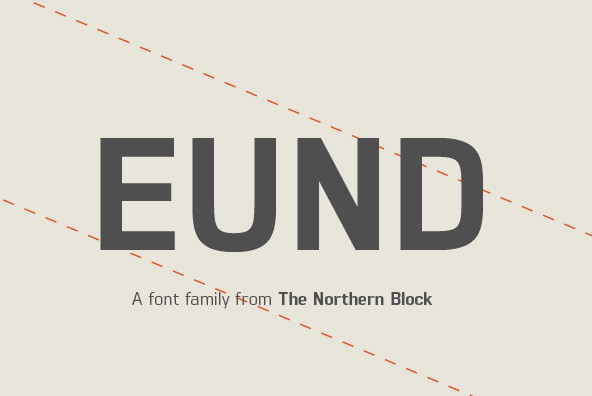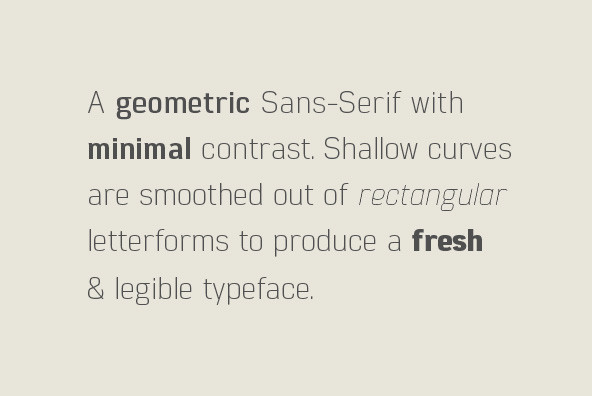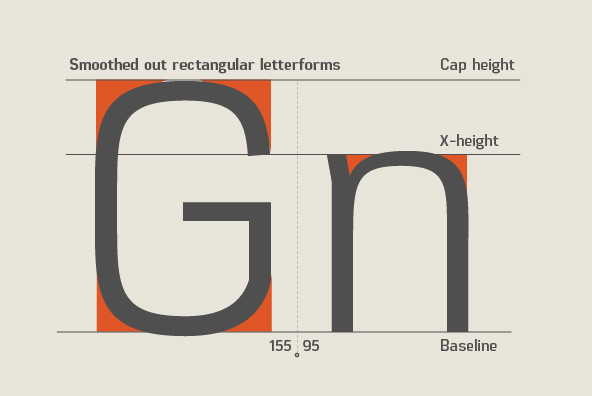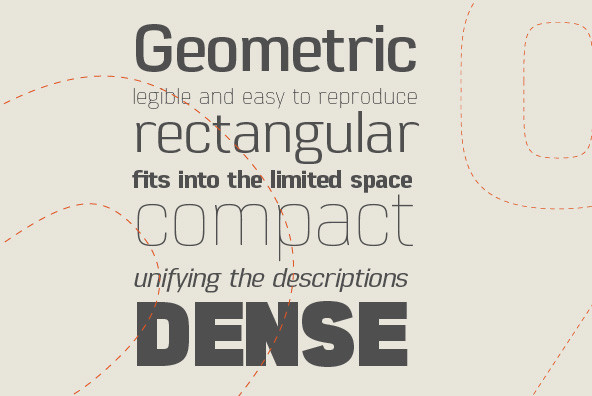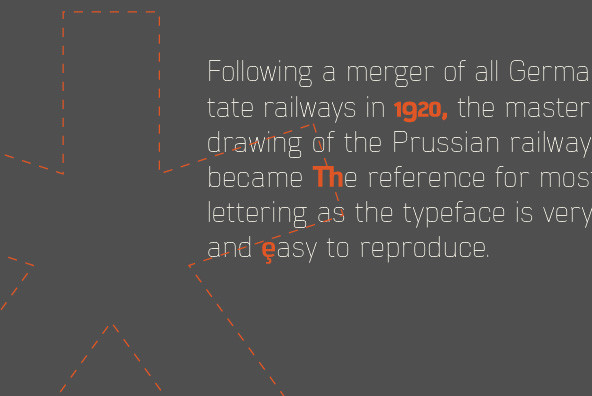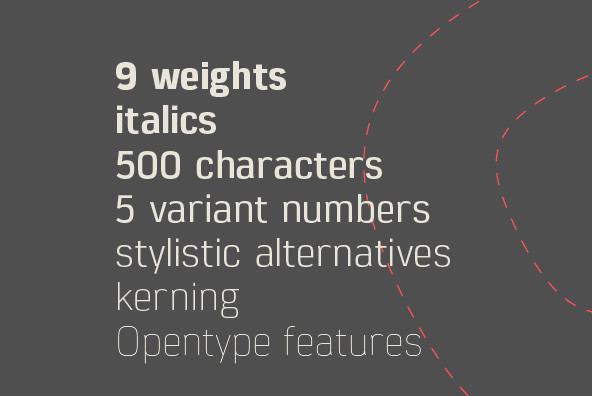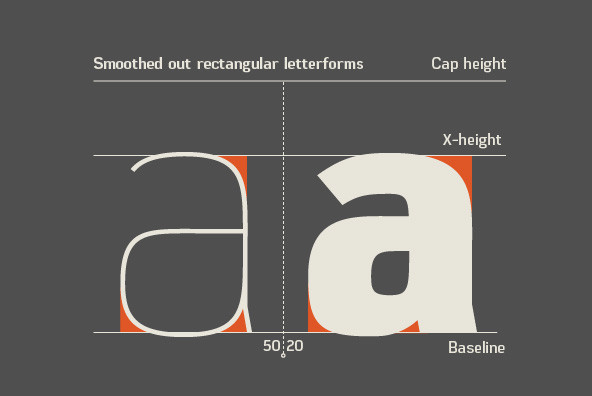
Foundry: The Northern Block
A geometric sans serif with minimal contrast. Shallow curves are smoothed out of rectangular letterforms to produce a fresh, legible typeface best suited to information based applications. Details include 9 weights with italics, 500 characters, 5 variations of numerals, stylistic alternatives, manually edited kerning and Opentype features.